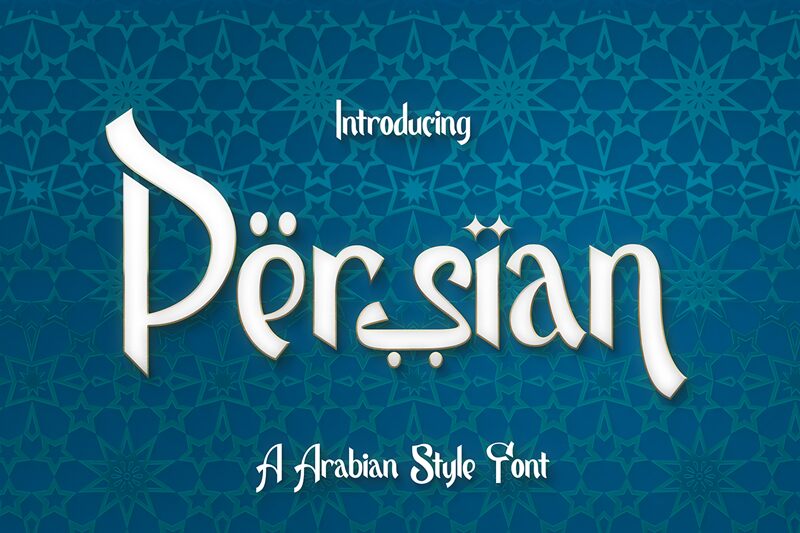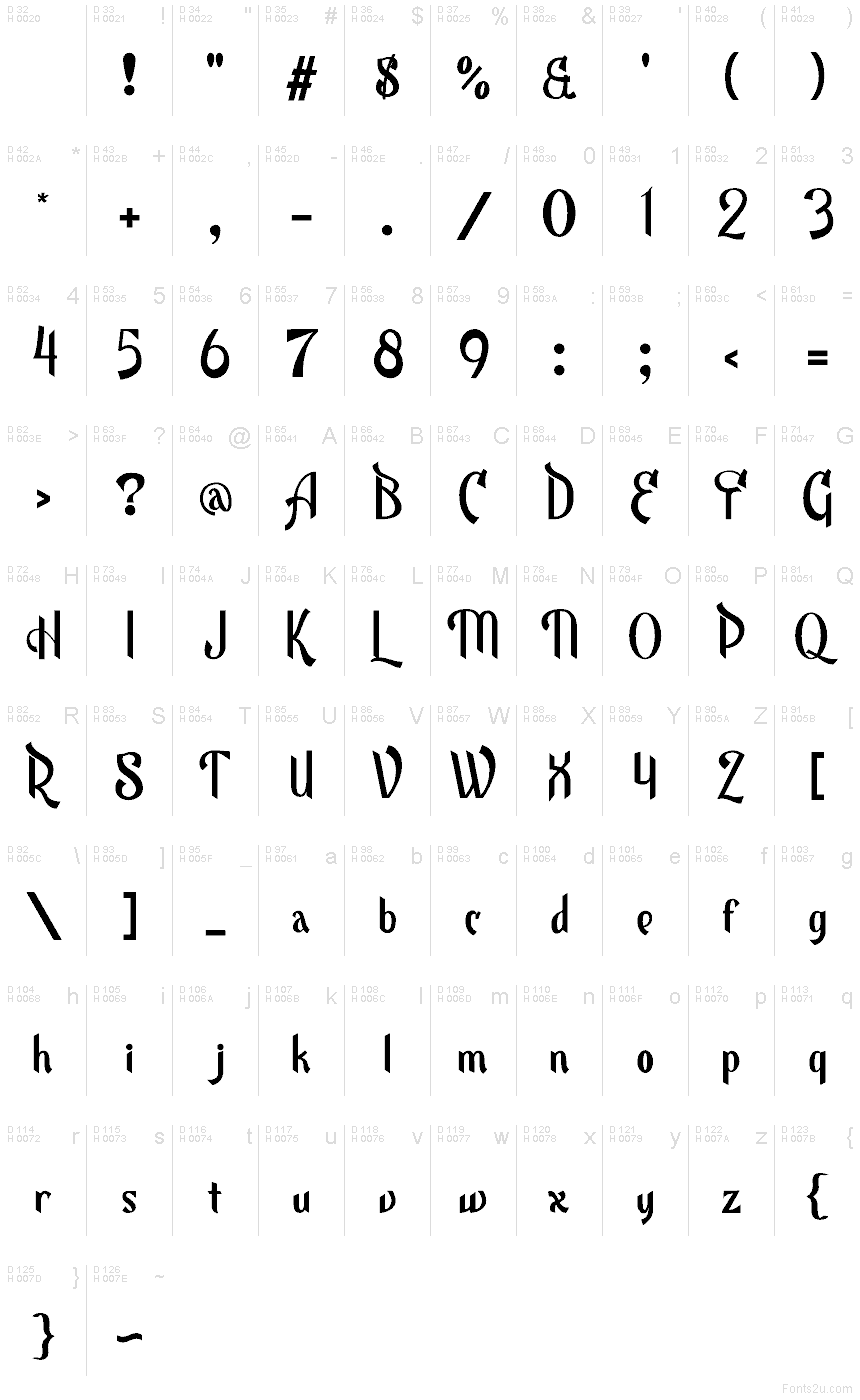
Persian
Persian font by Mocha Frappuccino is a free bold Arabic‑inspired display font. It stands out with scimitar‑like curves, blade‑sharp terminals, and inky contrast that feels carved rather than drawn. The tight rhythm and tall, tapering strokes create a dramatic cadence that reads clearly at a glance while keeping the exotic flair front and center.
Using Persian, headlines gain a ceremonial weight that shines on restaurant branding, spice or tea packaging, travel posters, festival titles, book covers, and café menus. This free font’s compact spacing and ornamental contours pull focus without clutter, making logos and wordmarks snap. For balance, pair it with a quiet geometric sans in small text, and let Persian handle the spotlight at larger sizes.